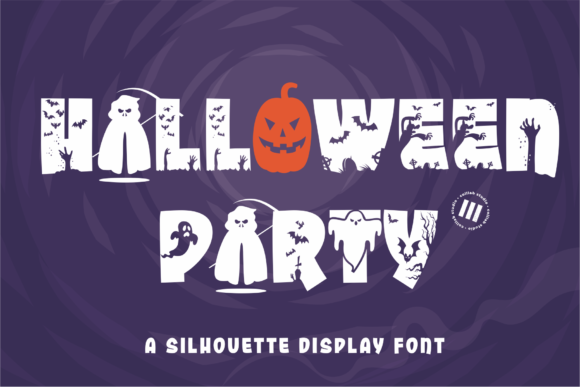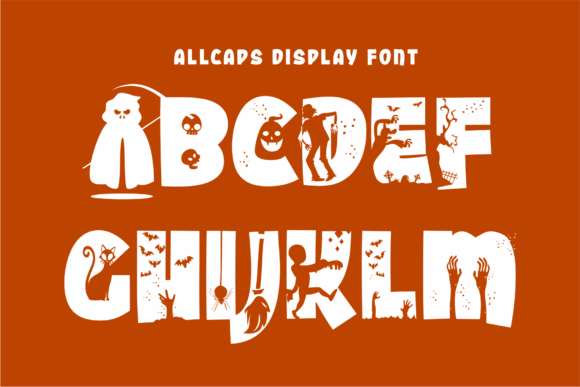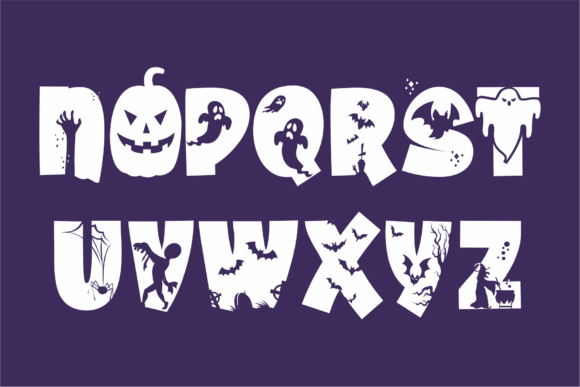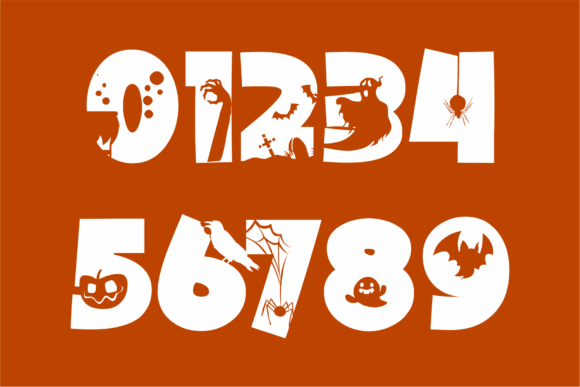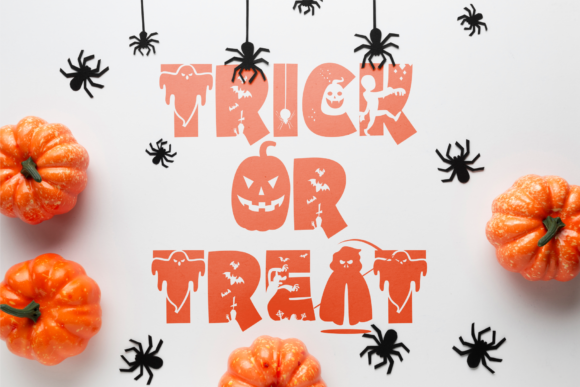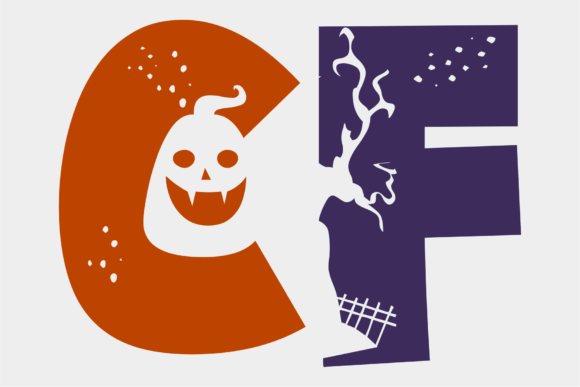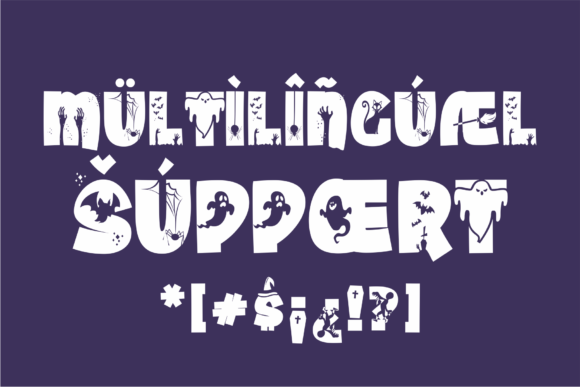
Spicing Up Your Halloween Designs
Do you remember the thrill of rummaging through your attic for old Halloween decorations, only to stumble upon a forgotten treasure trove of spooky goodies? It’s that same excitement we’re after when we dive into the world of creative Halloween design. With the right tools, we can bring our darkest, most whimsical ideas to life and make them shine.
That’s where the Halloween Party Font comes in – a bold and chunky lettered display font that’s sure to add a touch of eerie elegance to any design. Perfect for everything from invitations to social media graphics, this font is the ultimate addition to your creative Halloween arsenal. For designers, the Halloween Party Font offers a valuable opportunity to take their spooky-themed projects to the next level.
Halloween Party Font Key Features
- Unique Characteristics: The font features a spooky, hand-drawn design with intricate details and textures, adding a touch of Halloween spirit to any project.
Halloween Party Font Review
Halloween Party Font is a unique and quirky font that’s sure to add a touch of spooky charm to any Halloween-themed project. ✨ The font’s playful and whimsical feel makes it perfect for invitations, party decorations, and even costume designs. The font’s eclectic mix of letters and symbols adds a fun and unpredictable element that’s sure to grab attention.
- Unique and quirky design
- Perfect for Halloween-themed projects
- Playful and whimsical feel
- Eclectic mix of letters and symbols
However, there are a few limitations to consider. ⚠️ The font may be too over-the-top for some projects, and the lack of consistency in letterforms can make it difficult to read in certain situations. Additionally, the font may not be suitable for formal or professional projects.
Overall, Halloween Party Font is a fun and creative font that’s perfect for adding a touch of Halloween magic to any project. While it may have some limitations, the font’s unique design and playful feel make it a great choice for designers looking to add a little spooky flair to their work.
Halloween Party Font: A Practical Application Guide
To get the most out of the Halloween Party Font, try combining it with other spooky elements, such as:
- Ghostly textures and patterns.
- Creepy colors and lighting effects.
- Spooky graphics and illustrations.
The Halloween Party Font is perfect for:
- Halloween party invitations.
- Spooky social media posts.
- Creepy marketing materials.
Alternatives to Halloween Party Font
Creepster
Creepster is a modern, playful font that’s perfect for adding a spooky touch to your designs. It’s great for titles, headings, and any text that needs a bold, eerie feel. Compared to Halloween Party Font, Creepster is more versatile and can be used in a wider range of design contexts.
Great Vibes is a script font that’s ideal for creating a whimsical, mystical atmosphere. It’s perfect for invitations, posters, and other materials that need a touch of elegance and sophistication. While Halloween Party Font is more cartoonish, Great Vibes has a more refined, handwritten feel.
Rock Salt is a distressed font that’s great for creating a rugged, post-apocalyptic look. It’s perfect for designs that need a gritty, edgy feel. Compared to Halloween Party Font, Rock Salt is more aggressive and can add a sense of danger or chaos to your designs.
Spooky Bubbles
Spooky Bubbles is a playful, handwritten font that’s perfect for creating a fun, lighthearted atmosphere. It’s great for titles, headings, and any text that needs a bubbly, energetic feel. Compared to Halloween Party Font, Spooky Bubbles is more childlike and can add a sense of innocence or playfulness to your designs.